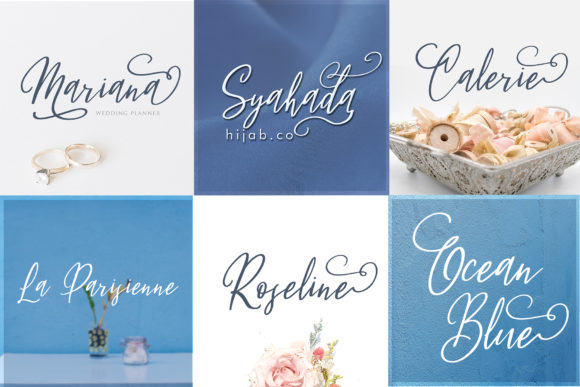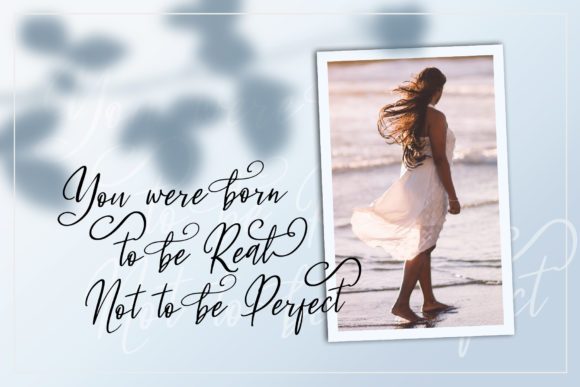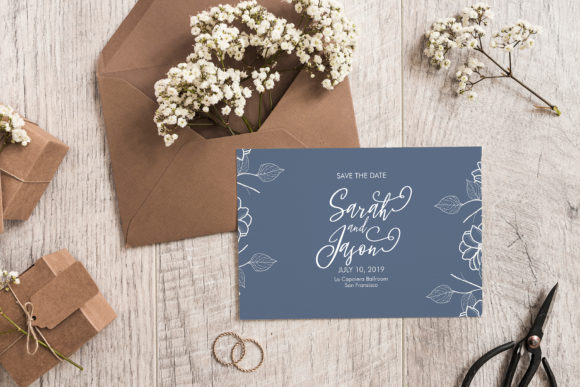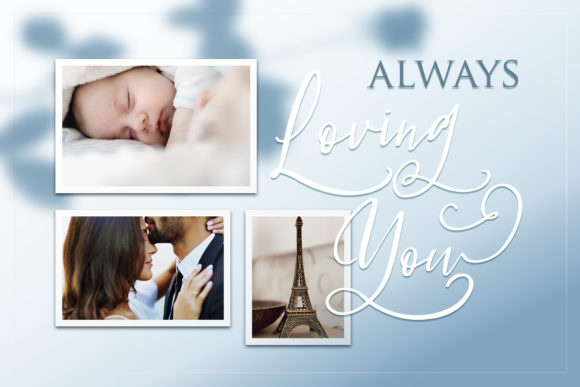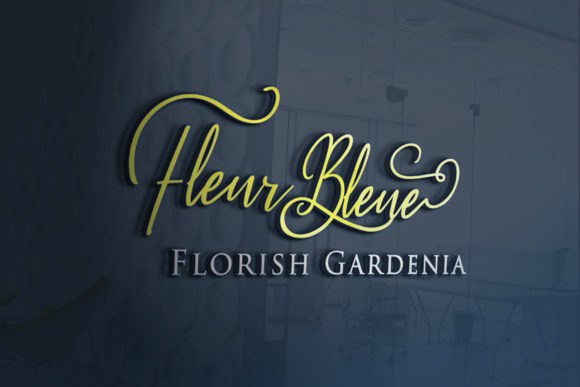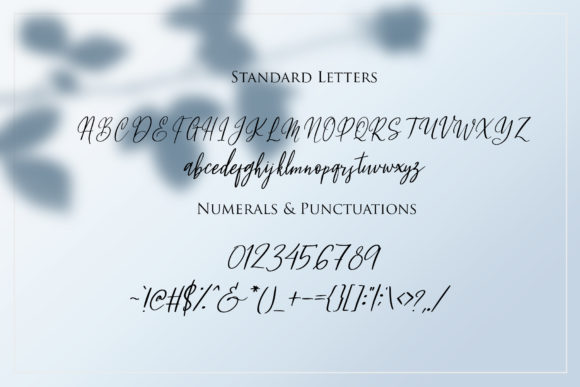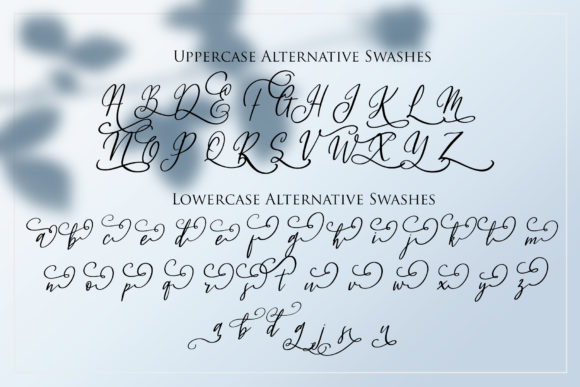
Fleur Bleue Font
About Fleur Bleue Font
Fleur Bleue is a romantic and stunning script font with a bold feel. It will add a unique twist to any design project.